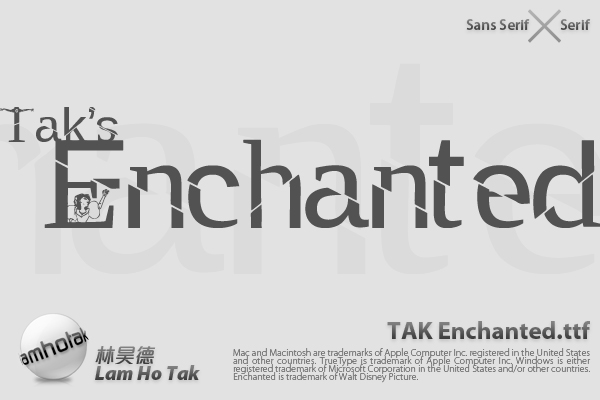
Font name: | TAK Enchanted |
Author: | Ho Tak Lam |
Note by Ho Tak Lam | |
In Fact, this is my homework... So the quality is not high. Sans serif part represent the real world, and the serif part represent the fairy tales world. |